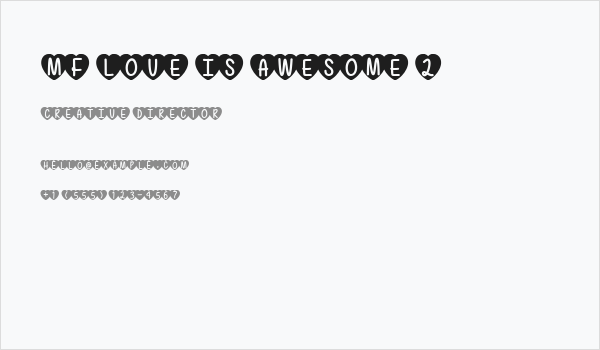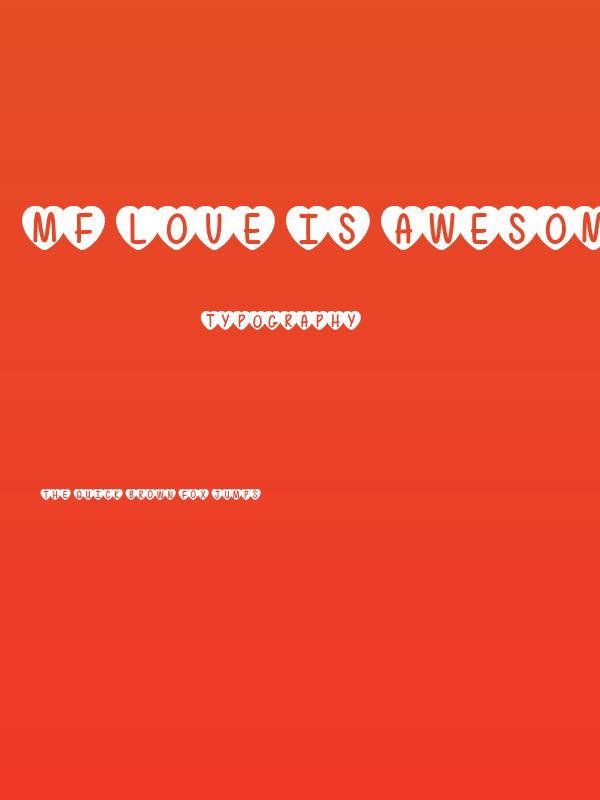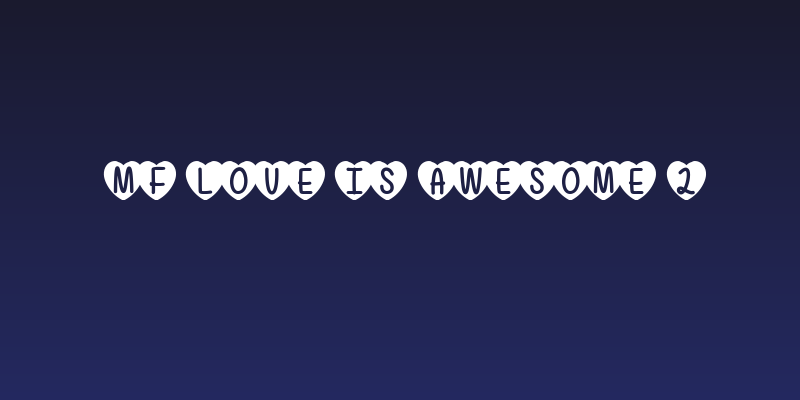
Mf Love Is Awesome 2 Font
Mf Love Is Awesome 2 Description
This playful and whimsical font features characters enclosed within heart shapes, creating a charming and romantic aesthetic. The letters are bold and rounded, with a handwritten style that adds a personal touch. The uppercase and lowercase letters are consistent in style, maintaining a cohesive look throughout. The numbers and special characters are also designed within heart shapes, ensuring uniformity. This font is perfect for projects that require a fun and loving theme, such as Valentine's Day cards, wedding invitations, or romantic social media graphics.
| Overall Style | Playful, Romantic |
| Proposed Projects | Valentine's Day cards, wedding invitations, romantic social media graphics, love-themed posters. |